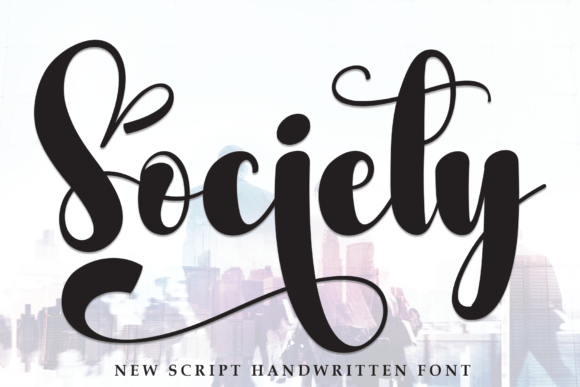
Celebrate life's most magical moments with Society Font, the charming and effortlessly stylish script font family designed by Strongkeng Old. With Society Font, your words will come to life, and your designs will shimmer with a touch of elegance and sophistication.
Immerse yourself in the whimsical world of Society Font, where each letter dances across the page with a playful allure. Perfect for wedding invitations, cards, and any creative project that deserves an extra dash of enchantment, Society Font is your ultimate choice for creating timeless designs.
Discover the magic of Society Script, where every character is a work of art, and every word is a testament to the beauty of handwritten elegance. Say goodbye to ordinary fonts and embrace the artistry of Society Font, where each letter becomes a delicate brushstroke, adding a personal touch to your digital creations.
Let Society Font transport you to a world of romance and elegance, where every letter is a symbol of love and joy. From save-the-dates to wedding vows, Society Script will transform your words into a captivating story, leaving a lasting impression on your loved ones.
Step into the realm of Society Font, where creativity meets elegance, and watch your designs come alive with a touch of magic. This enchanting font family will add a dash of sophistication to any project, from logos and branding to social media graphics. Let Society Font inspire you to create captivating content that will leave your audience spellbound.